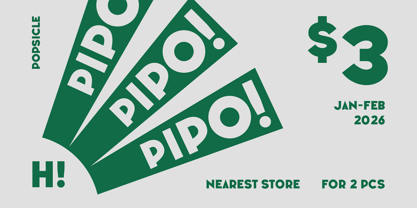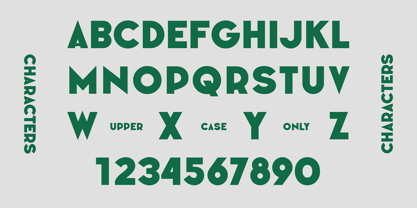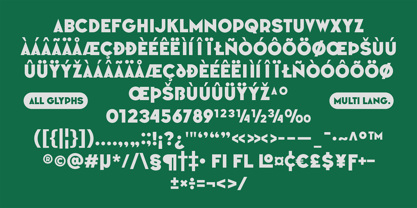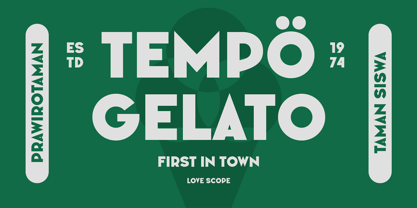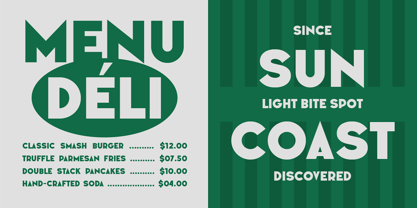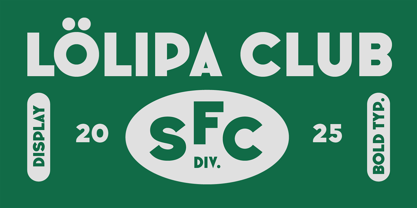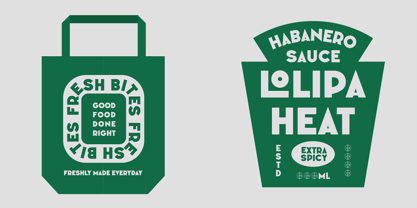
SFC Lolipa Club
SFC LOLIPA CLUB is a bold rounded sans serif display typeface inspired by modern club culture, retro signage, and contemporary branding. Featuring confident geometry, smooth curves, and strong all-caps forms, it delivers a playful yet clean personality that feels graphic, friendly, and instantly recognizable. Designed for clarity with character, LOLIPA CLUB brings strong visual impact while remaining highly readable across both digital and print applications.